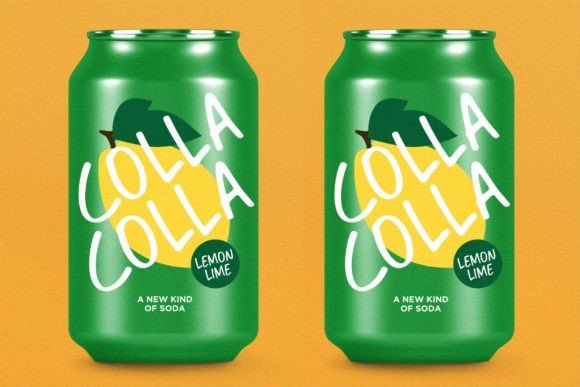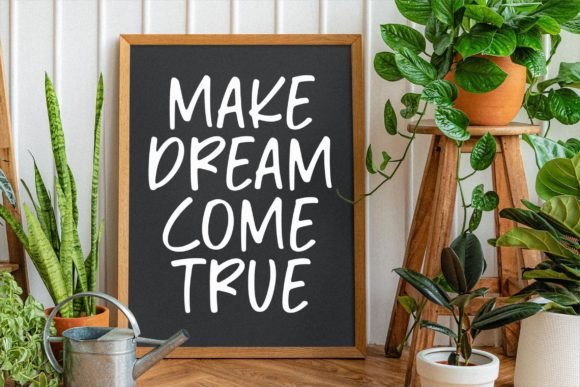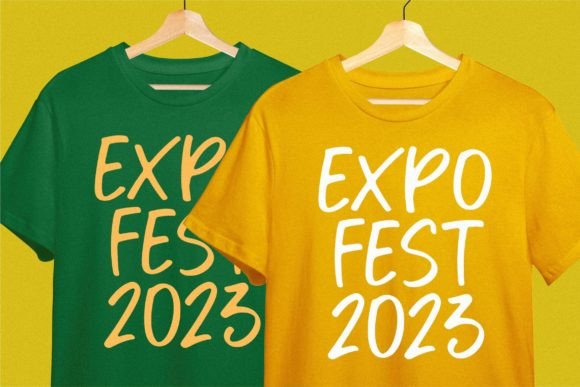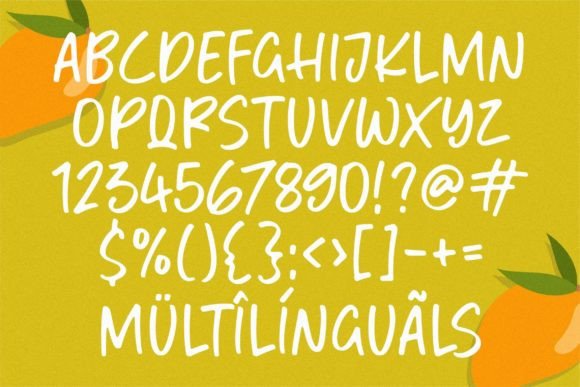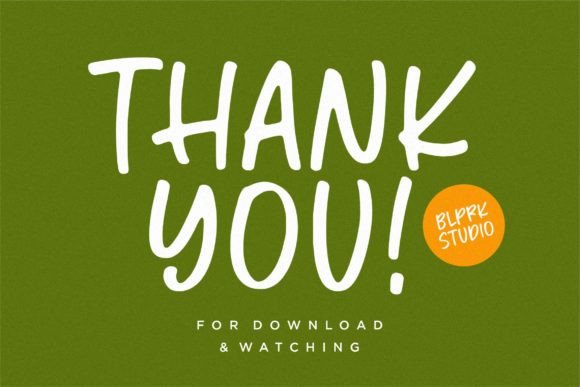
Introduction to Mango Mingle Font
There’s something magical about starting a new creative project, isn’t there? The blank canvas, the endless possibilities, the excitement of bringing your vision to life. For designers, this thrill is what drives us to keep pushing the boundaries of what’s possible. And when it comes to adding that perfect touch to our designs, a great font can make all the difference.
That’s where the Mango Mingle Font comes in – a stunning, hand-drawn font that’s perfect for everything from crafting to digital design. With its playful, whimsical feel, this font is sure to add a touch of personality to any project. And with its high-quality design and transparent background, you can rest assured that your designs will look their best. Whether you’re a seasoned pro or just starting out, the Mango Mingle Font is a valuable addition to any designer’s toolkit.
In this article, we’ll take a closer look at the features and benefits of the Mango Mingle Font, and explore why it’s become a go-to design resource for creatives everywhere.
Key Features of Mango Mingle Font
- Unique, playful design perfect for creative projects, offering a high-quality aesthetic.
- Scalable and legible in various font sizes, from 12 to 72 points, making it ideal for headings and body text.
Honest Review: Mango Mingle Font
The Mango Mingle Font has been a delightful addition to my design projects. Its unique style and high quality make it a great resource for creatives.
- What works well: ✨ The font is perfect for creating playful and vibrant designs. Its wide range of characters and symbols makes it ideal for creative projects, from social media graphics to branding materials.
- What works well: ✨ The font’s transparent background allows for seamless integration with other design elements, making it a valuable design resource.
- ⚠️ The font may not be suitable for formal or professional designs, as its playful style may not convey the desired level of sophistication.
- ⚠️ Some users may find the font’s irregularities to be distracting, particularly when used in large quantities.
Tips for Getting the Most Out of Mango Mingle Font
Experiment with different font sizes and colors to create a visually appealing design. Use it in combination with other design elements to create a unique and creative project.
The Mango Mingle Font is ideal for a variety of design projects, including business cards, brochures, and social media graphics. Its high-quality design and transparent background make it a versatile design resource.